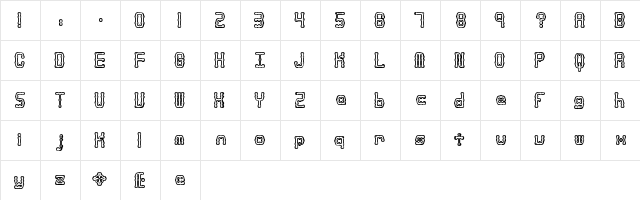
Arthritis BRK Regular
| Foundry | ƎIGMA FONTS |
| Designer | ƎIGMA FONTS - Brian Kent |
Design Context for Arthritis BRK Typeface
Arthritis BRK is a composed and adaptable typeface that performs quietly and consistently across a wide range of design contexts.